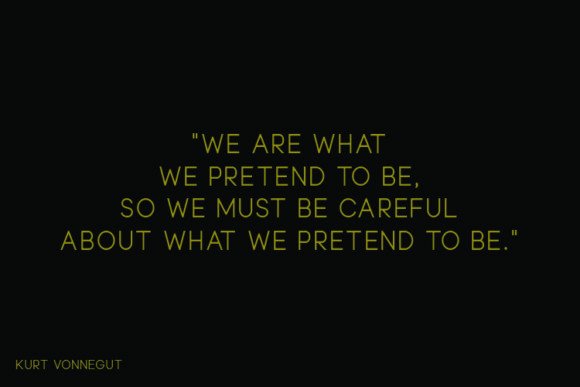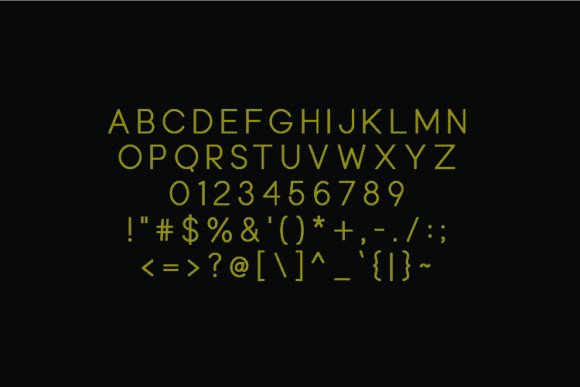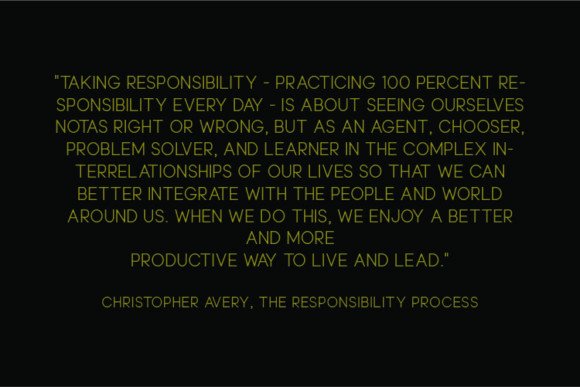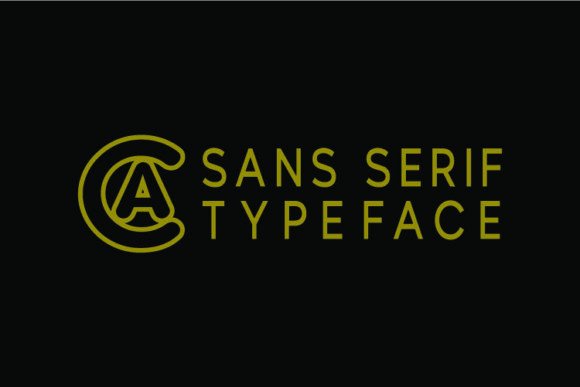
Introduction to Popular Lemonade Font
Introducing Popular Lemonade, a modern, classy sans serif typeface.
A sans serif typeface that contains upper characters, numbers 0-9, and a range of punctuation and symbols An extremely versatile font, perfect for logos, weddings, invitations, quotes, advertisements, print, magazines, and more.
Key Features of Popular Lemonade Font